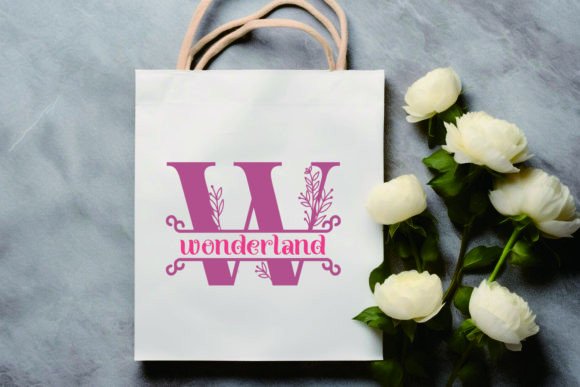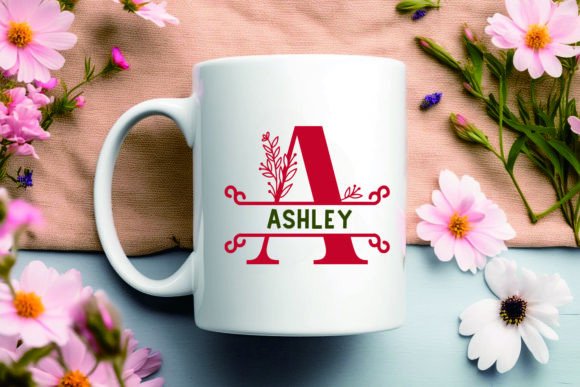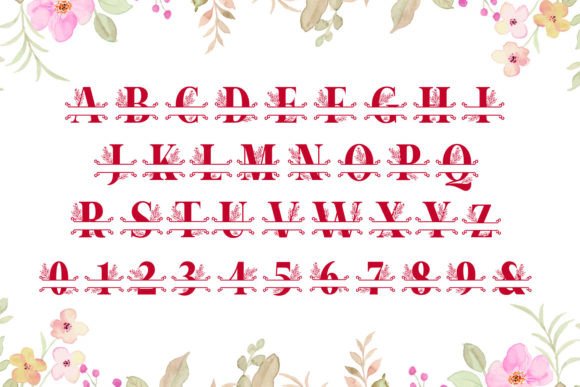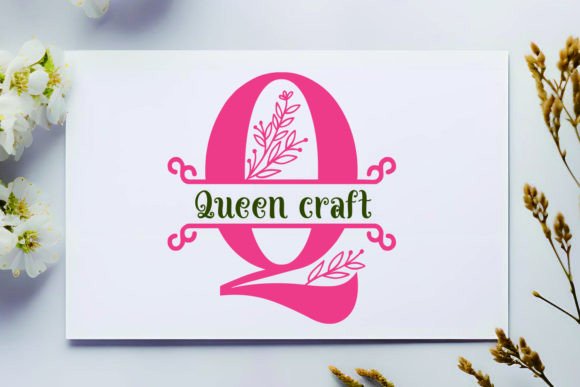
Mellissa Monogram Font
Introducing Mellissa Monogram font – your ultimate choice for adding a touch of elegance and sophistication to your crafting projects, greeting cards, decorations, craft lettering, and embroidery. With its intricate monogram style, Mellissa Monogram font offers endless possibilities to elevate your designs to the next level.
Crafted with precision and attention to detail, this font exudes timeless charm and versatility, making it perfect for various creative endeavors. Whether you’re designing personalized gifts, embellishing invitations, or adding a unique flair to your home decor, Mellissa Monogram font is sure to impress.